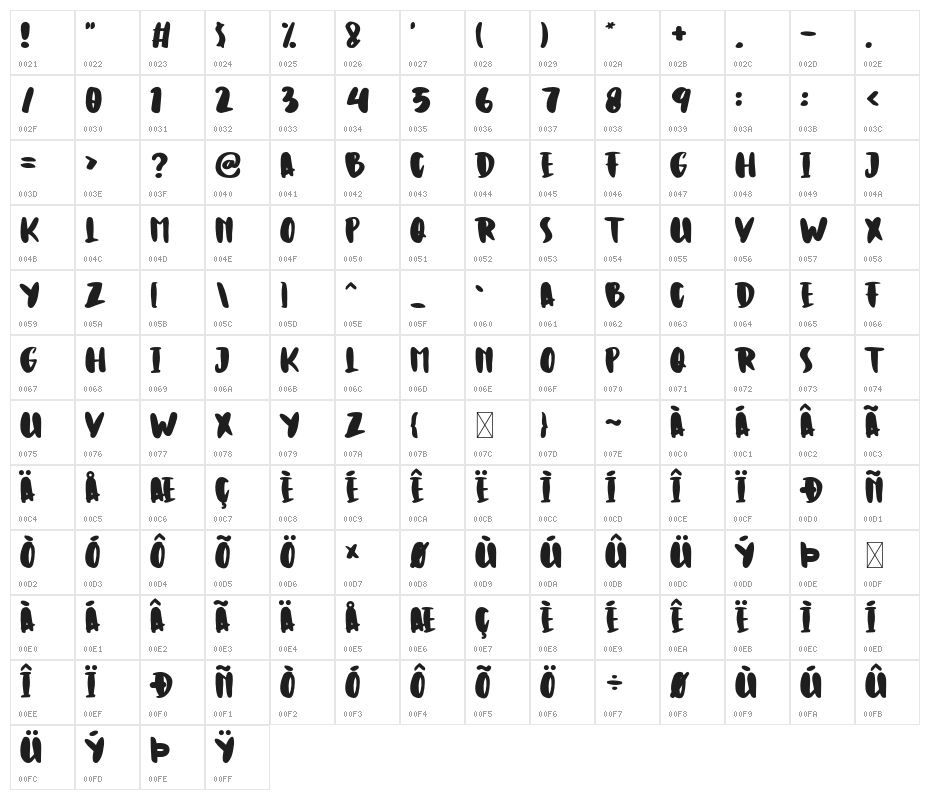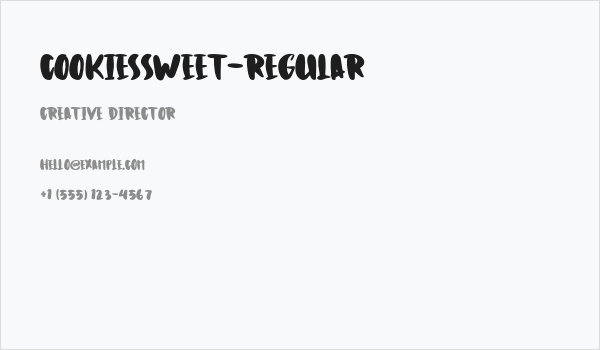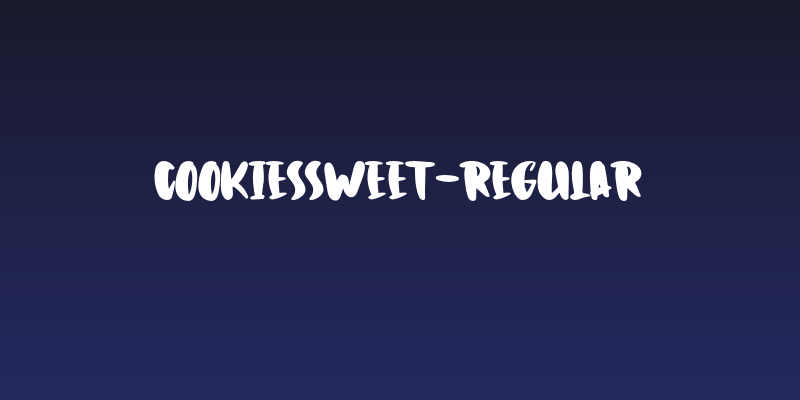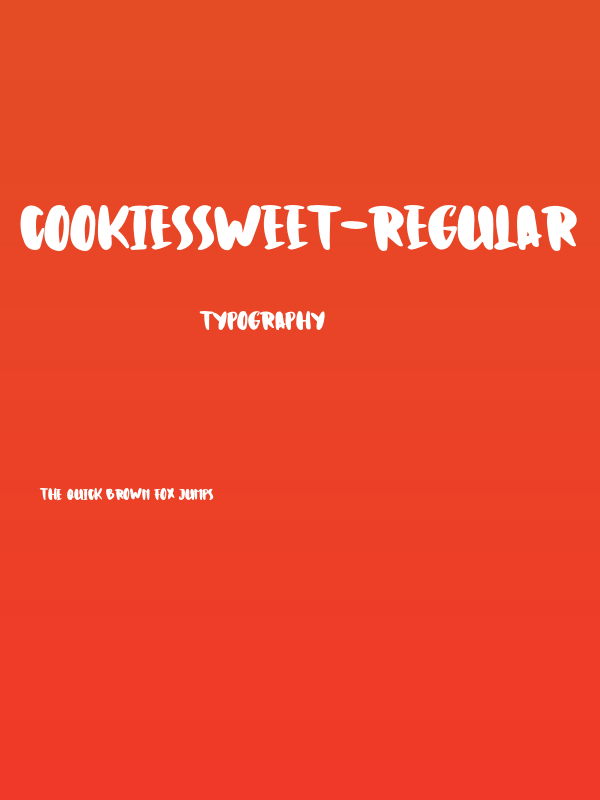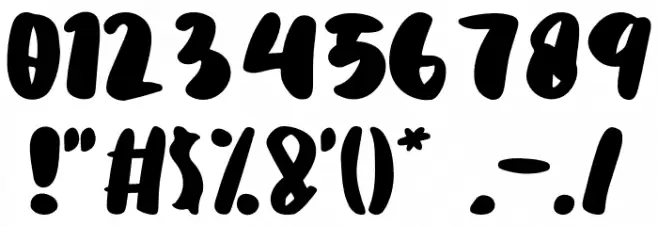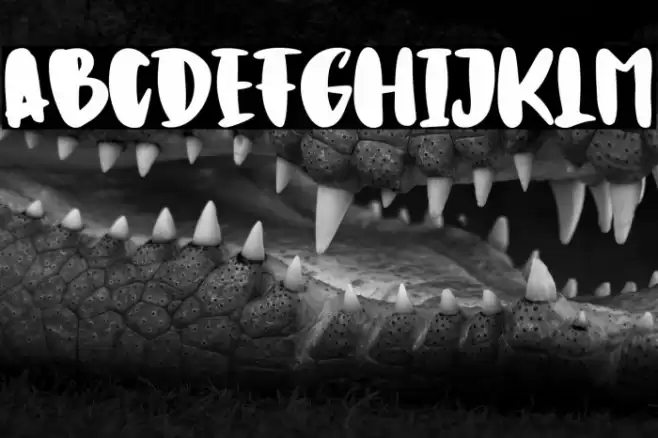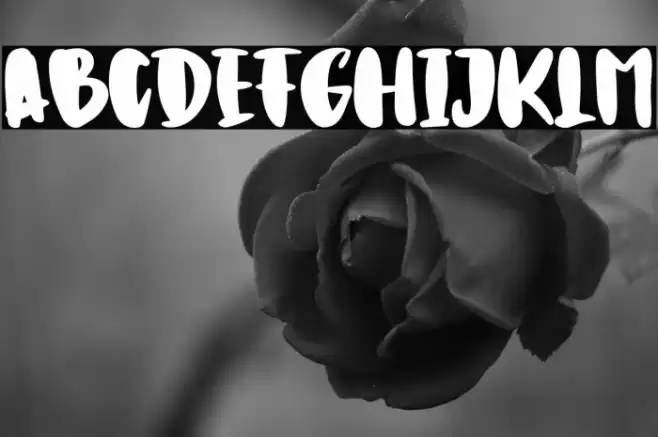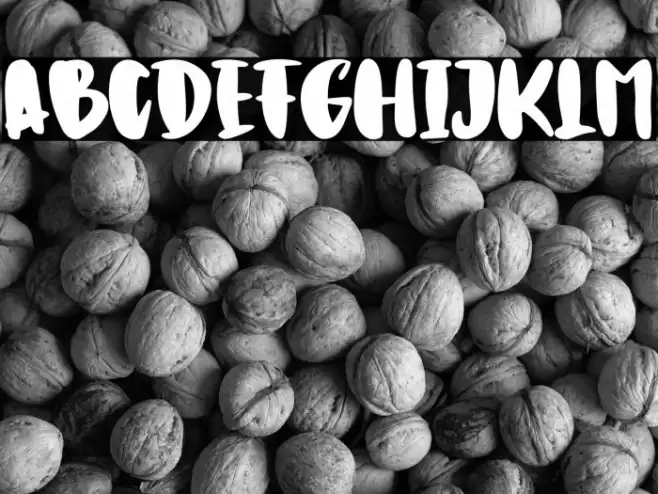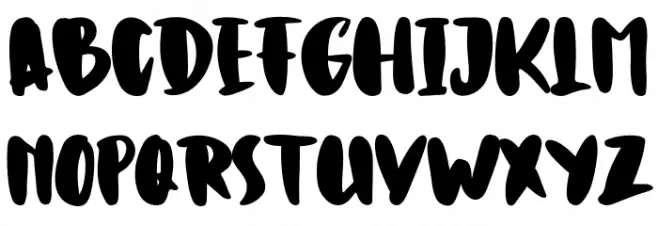
CookiesSweet-Regular Font
CookiesSweet-Regular Description
This playful and bold font features thick, rounded strokes that give it a friendly and approachable appearance. The characters are designed with a hand-drawn style, adding a touch of whimsy and charm. The uppercase and lowercase letters maintain a consistent weight, creating a cohesive look across the alphabet. The numbers and special characters are equally bold and maintain the same playful aesthetic. This font's unique style makes it stand out, making it ideal for projects that require a fun and engaging typeface.
| Proposed Projects | Ideal for children's books, playful branding, greeting cards, and social media graphics. |